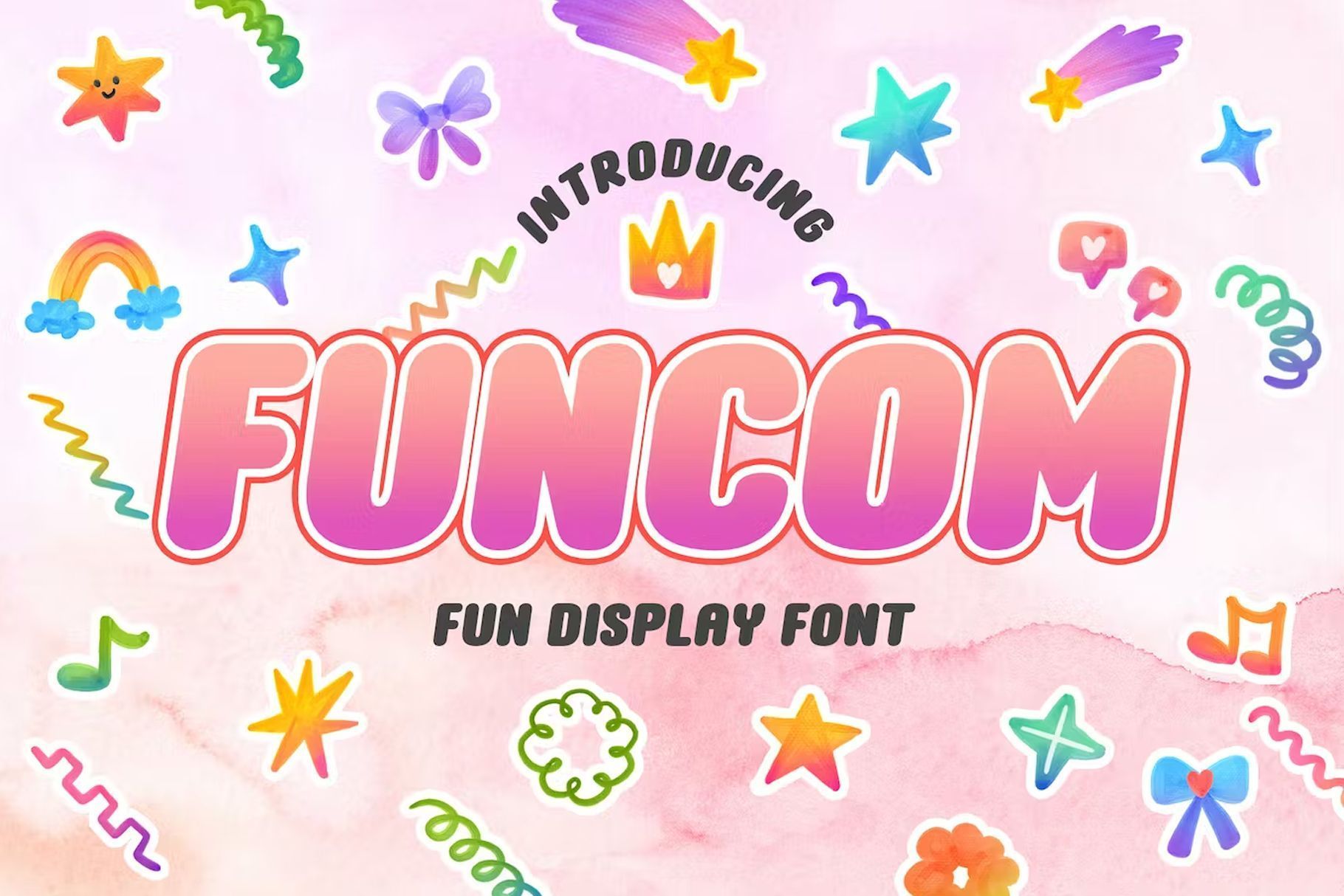
Funcom – Rounded Fun Font
Funcom is a rounded fun font from Drizy Studio.
Funcom features:
- All Caps
- Punctuation & Numbers
- Multilingual Support
- Ligatures
Get ready to add some FUN to your designs with Funcom – the playful and eye-catching display font that’s sure to bring a smile to your audience’s face!